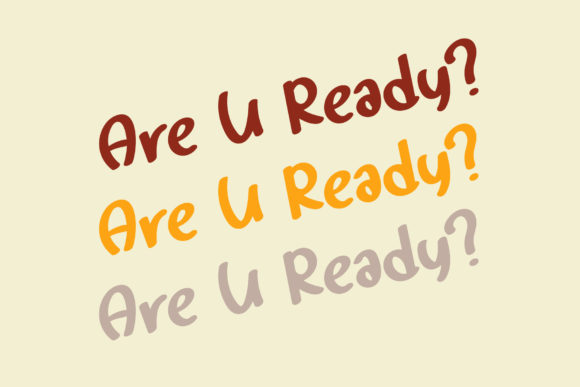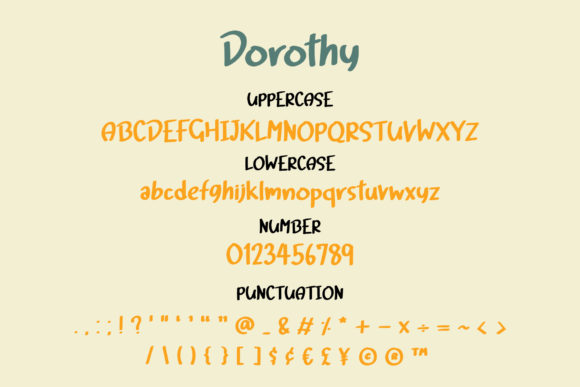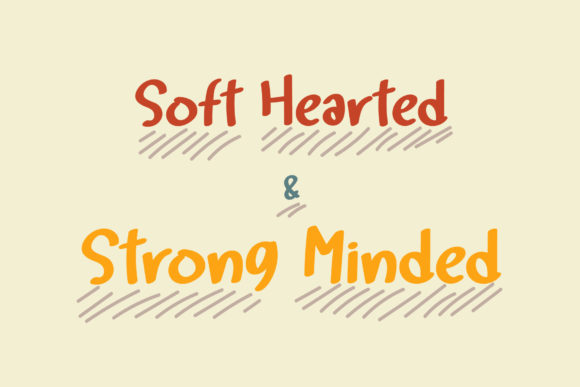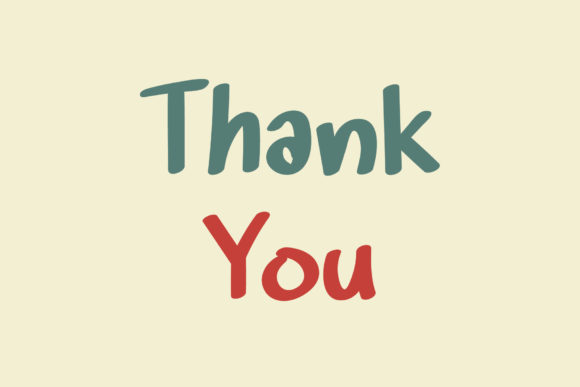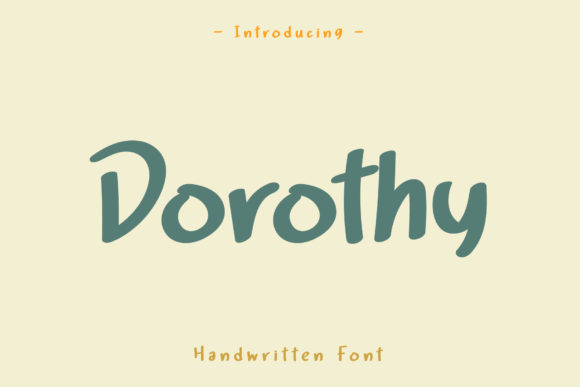
Dorothy Font: The Ultimate Guide to this Charming Handwritten Font
Are you looking for a font that exudes warmth, friendliness, and approachability? Look no further than the Dorothy font! This beautiful handwritten font has been carefully crafted to become a true favorite among designers and crafters alike. In this article, we’ll take a closer look at what makes Dorothy so special and why it’s a must-have for any design project.
The Charm of Dorothy Font
Dorothy is a cute handwritten font that boasts a casual charm that makes it appear wonderfully down-to-earth, readable, and incredibly versatile. Its unique character is perfect for adding a personal touch to any design project, whether it’s a blog post, social media graphic, or even a logo. The font’s handcrafted nature gives it a distinctive feel that’s hard to find with more traditional fonts.
What Makes Dorothy Font So Versatile?
One of the standout features of Dorothy font is its versatility. It can be used in a wide range of contexts, from busy backgrounds to standalone headlines. The font’s clear and readable design makes it perfect for body text, while its charming character makes it ideal for titles and headings. Whether you’re designing a website, creating a social media graphic, or crafting a flyer, Dorothy font is sure to impress.
Using Dorothy Font on Busy Backgrounds
One of the things that sets Dorothy font apart is its ability to stand out on busy backgrounds. The font’s bold and playful design makes it easy to read, even when placed on top of a complex or textured background. This makes it perfect for designers who want to add a pop of personality to their designs without sacrificing readability.
Using Dorothy Font as a Standalone Headline
Dorothy font is also stunning when used as a standalone headline. Its charming character and beautiful handcrafted design make it perfect for adding a touch of elegance and sophistication to any design project. Whether you’re creating a logo, designing a poster, or crafting a business card, Dorothy font is sure to make a lasting impression.
Why Designers and Crafters Love Dorothy Font
So why do designers and crafters love Dorothy font so much? For starters, its unique character and handcrafted nature make it a standout in any design project. The font’s versatility and readability also make it perfect for a wide range of applications, from body text to titles and headings. Plus, its charming and approachable design makes it perfect for brands that want to convey a sense of warmth and friendliness.
Tips for Using Dorothy Font in Your Designs
Here are a few tips for using Dorothy font in your designs:
- Use Dorothy font to add a personal touch to your designs. Its handcrafted nature and charming character make it perfect for adding a human touch to your designs.
- Experiment with different colors and textures to really make Dorothy font pop. The font’s bold and playful design makes it perfect for adding a splash of color to your designs.
- Don’t be afraid to mix and match Dorothy font with other fonts. Its versatility makes it perfect for pairing with other fonts to create a unique and eye-catching design.
In conclusion, Dorothy font is a charming and versatile handwritten font that’s perfect for designers and crafters alike. Its unique character, handcrafted nature, and readability make it a standout in any design project. Whether you’re designing a website, creating a social media graphic, or crafting a flyer, Dorothy font is sure to impress. So why not give it a try and see the difference it can make in your designs?